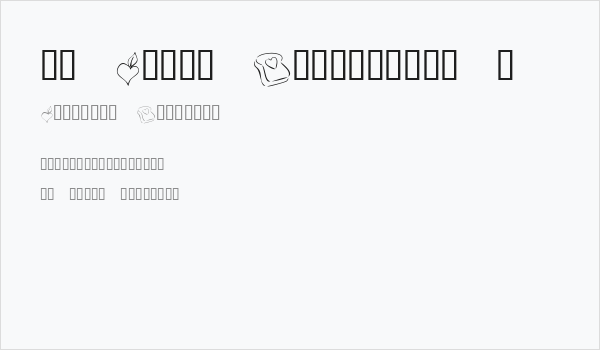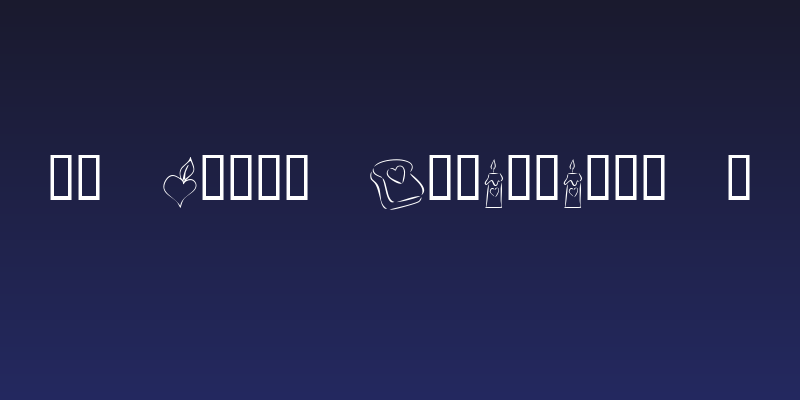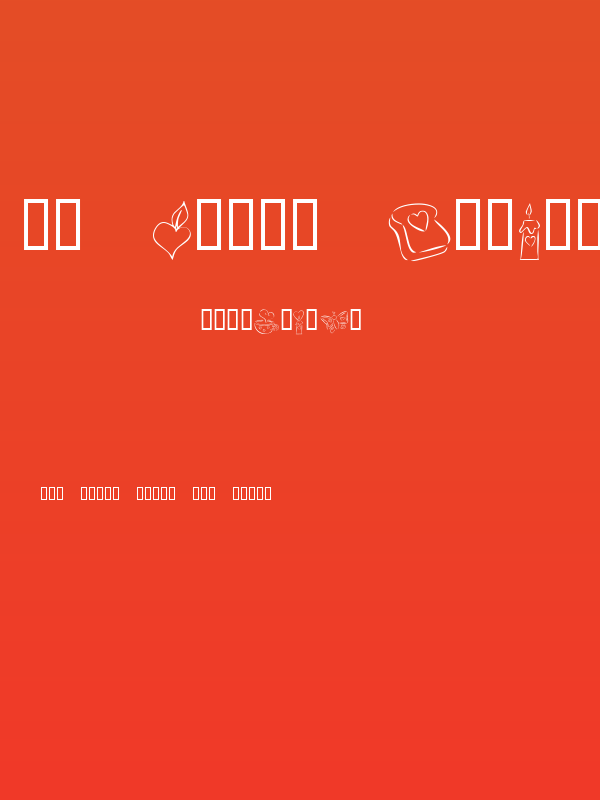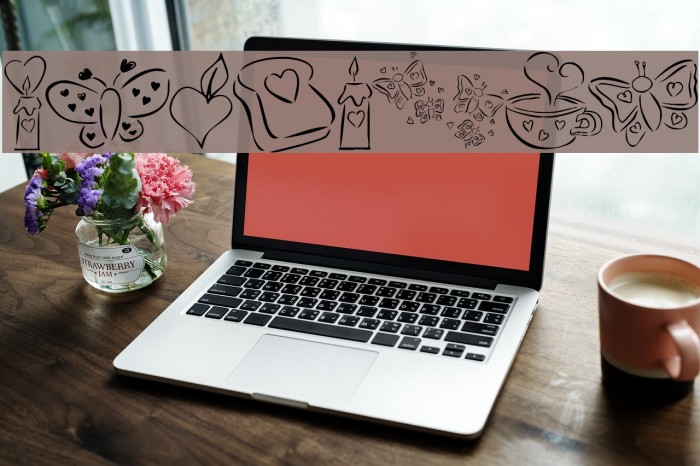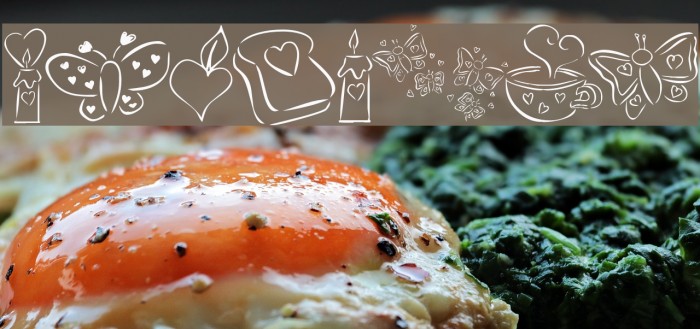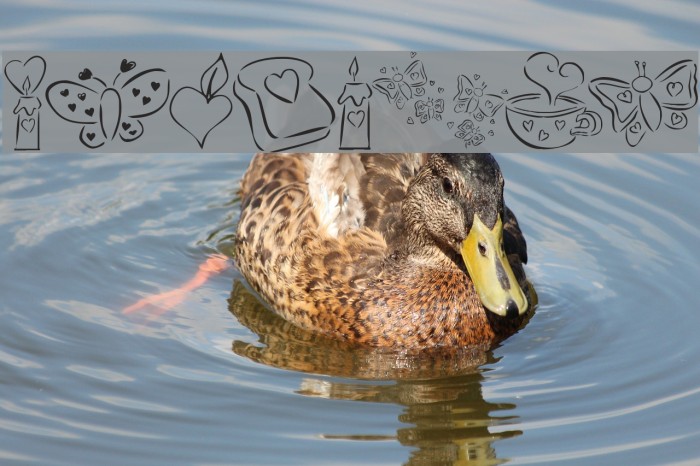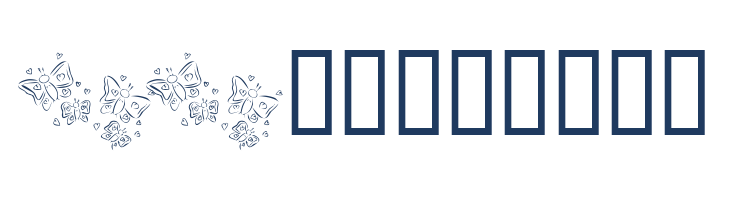
KR Cuori Divertenti 3 Font
KR Cuori Divertenti 3 Description
This is a playful and whimsical decorative font featuring a series of charming heart-themed illustrations. Each character is represented by a unique and delightful design, incorporating elements like butterflies, candles, and cups with heart motifs. The style is hand-drawn, giving it a personal and artistic touch. The font is perfect for adding a fun and loving vibe to any project, with its intricate and detailed designs that capture attention and evoke a sense of joy and creativity.
| Overall Style | Playful and Artistic |
| Use Case | Logos, Invitations, Decorative Headlines |
| Proposed Projects | Ideal for greeting cards, wedding invitations, Valentine's Day promotions, and playful branding projects. |